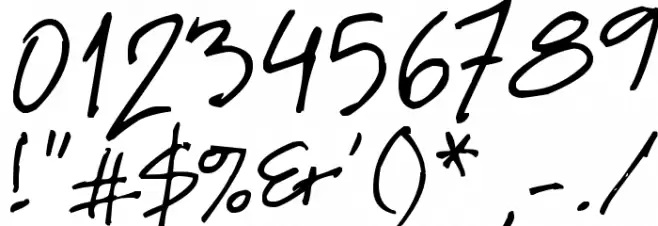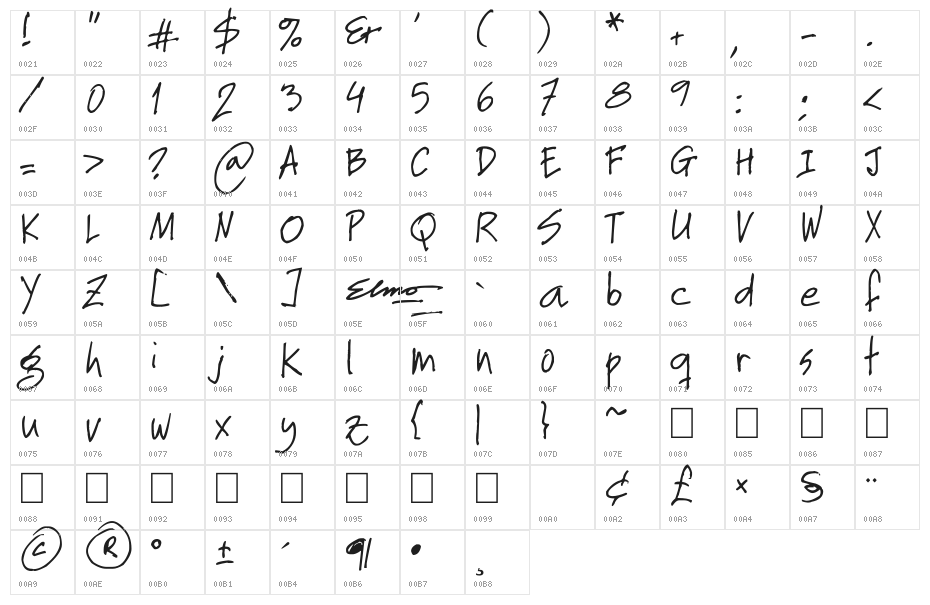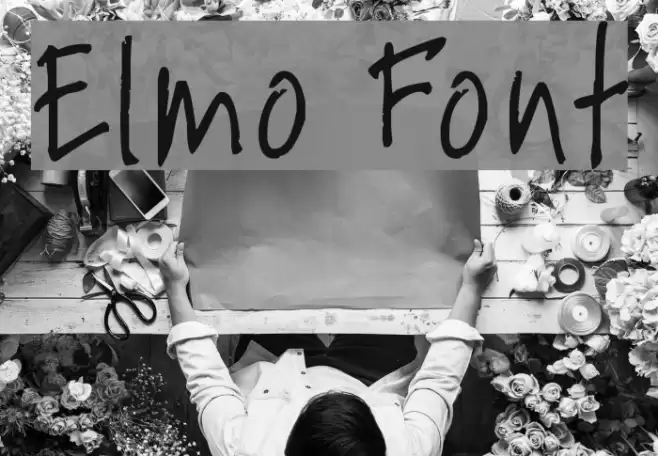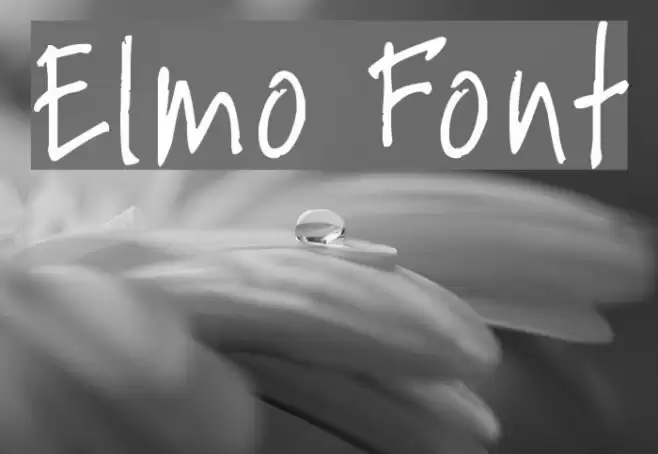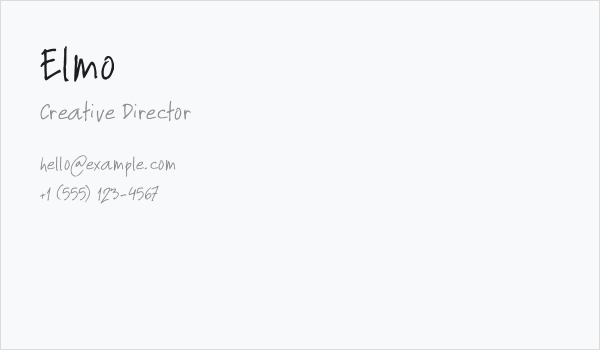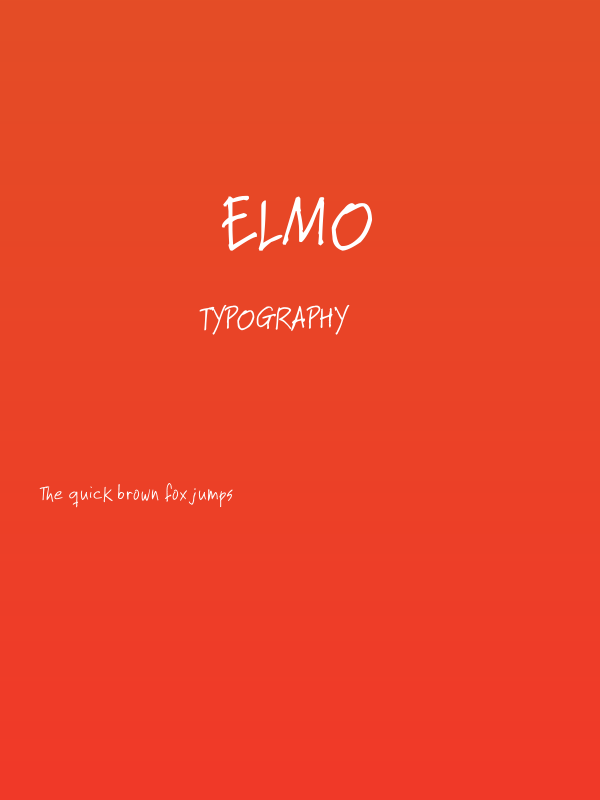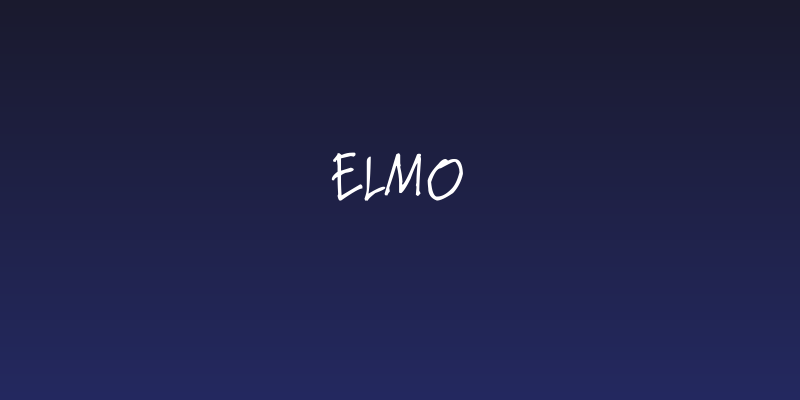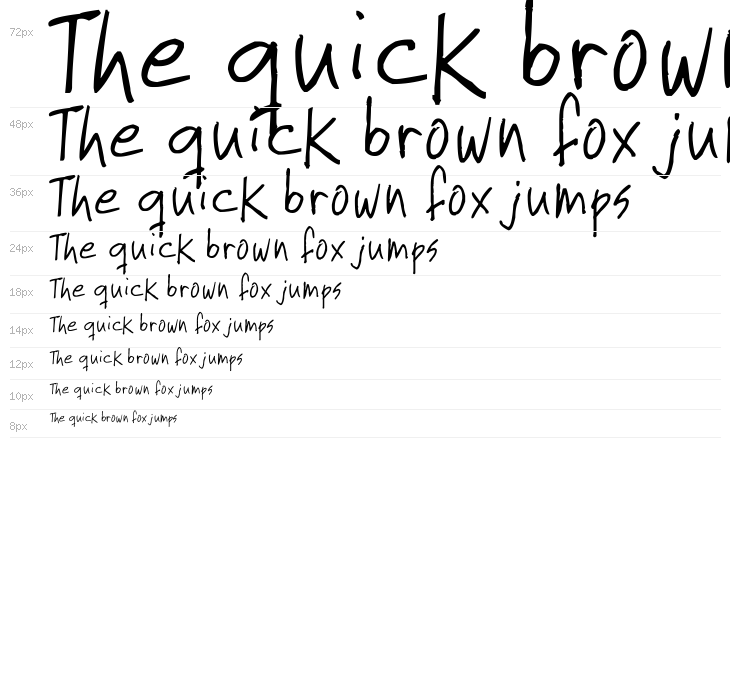
Elmo Font
Elmo Description
This font exudes a playful and casual handwritten style, characterized by its fluid and dynamic strokes. The letters are slightly slanted, giving a sense of motion and informality. The uppercase and lowercase letters maintain a consistent style, with rounded edges and varying stroke thickness that adds a lively and approachable feel. The numerals and special characters follow the same playful aesthetic, making the font versatile for various creative projects. Its informal nature makes it ideal for designs that require a personal touch.
Overall StyleCasual
Use CaseHeadlines, Logos, Informal Text
Proposed ProjectsIdeal for greeting cards, children's books, casual branding, and social media graphics.